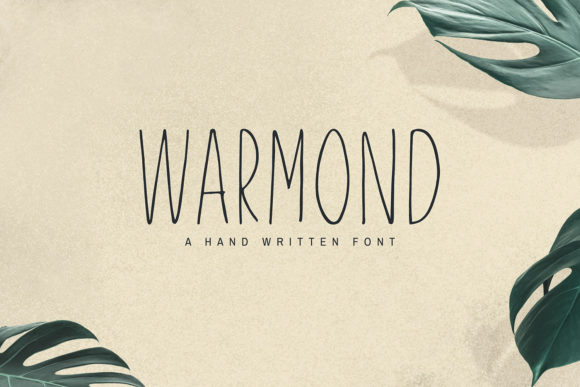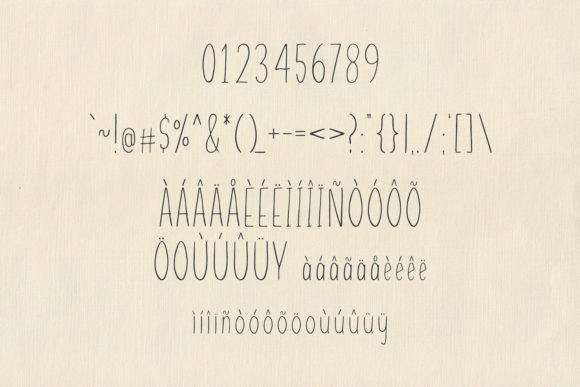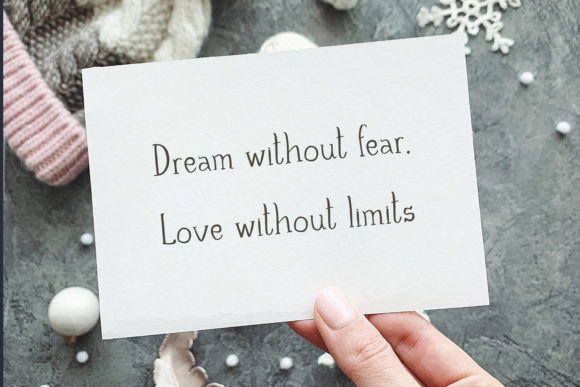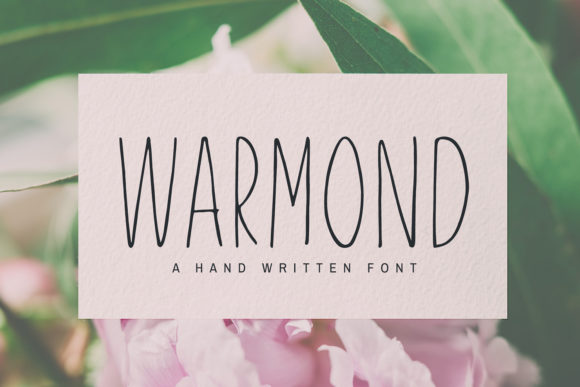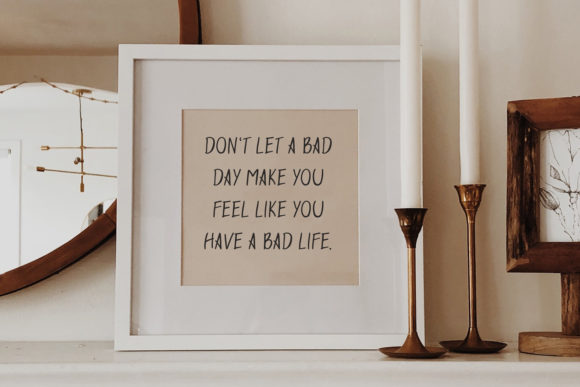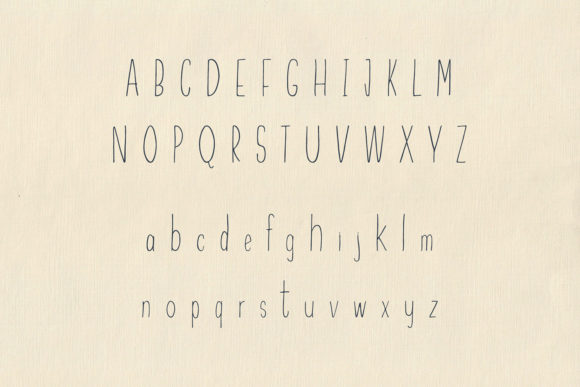
Warmond Font
About Warmond Font
Warmond is a cool, sober and thin lettered handmade font that will add a luxury spark to any design project that you wish to create! It contains complete basic glyphs with multilingual support.